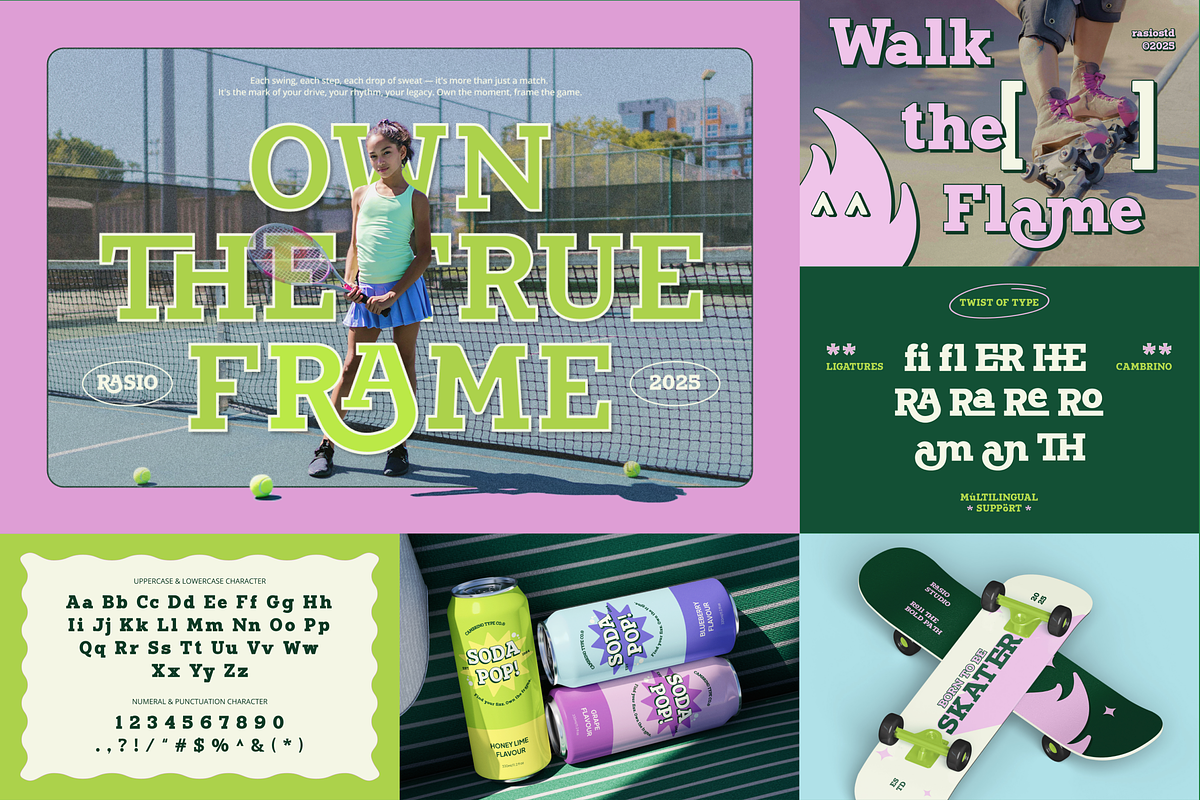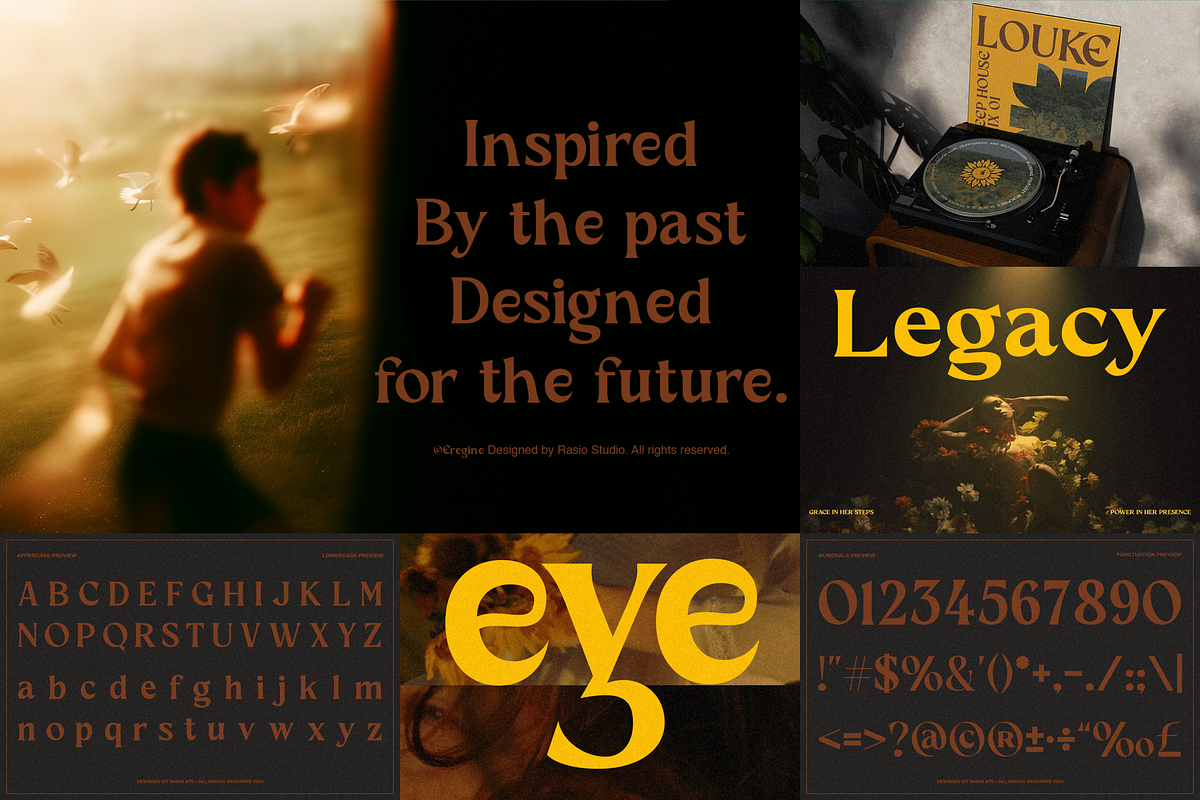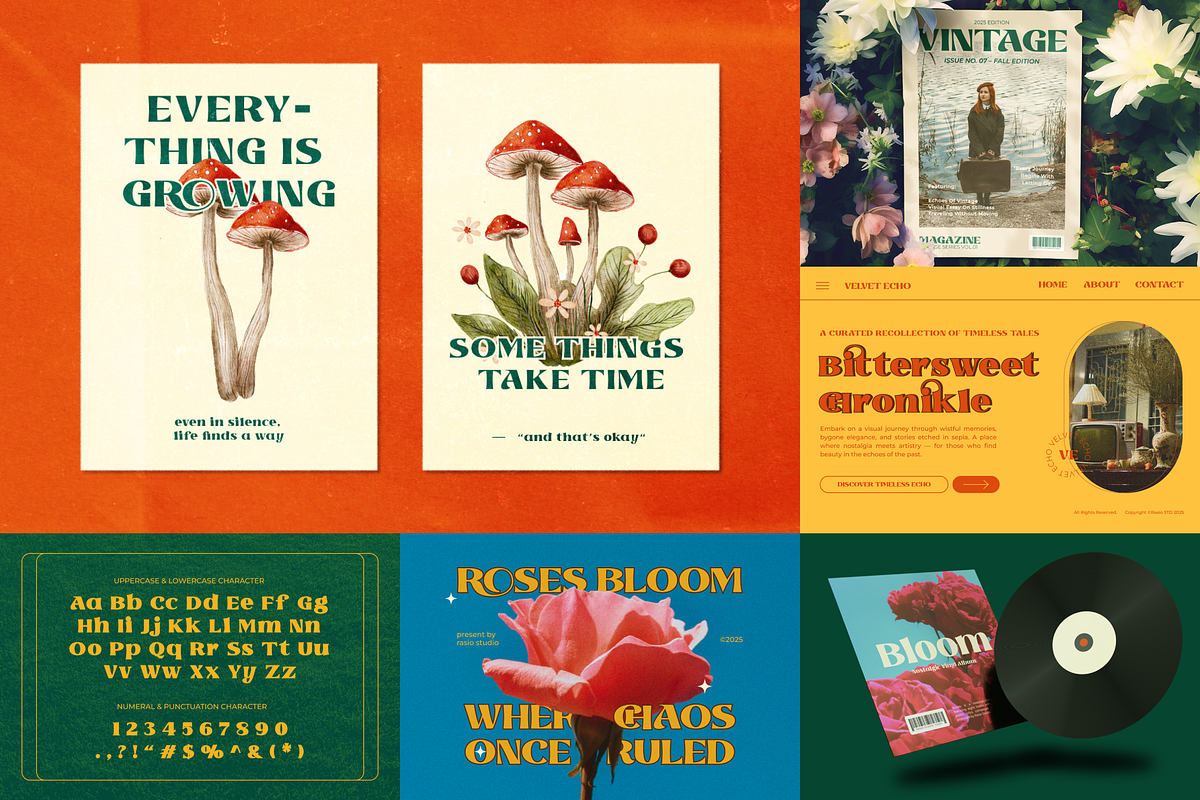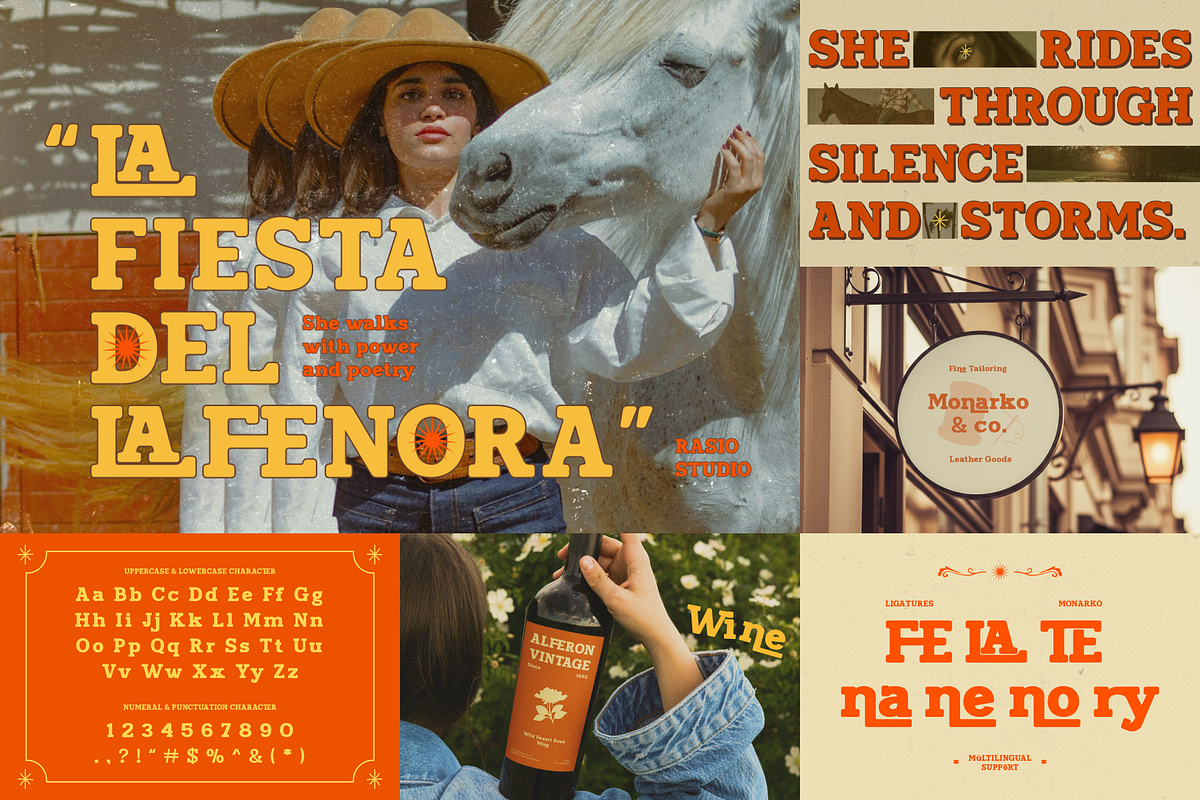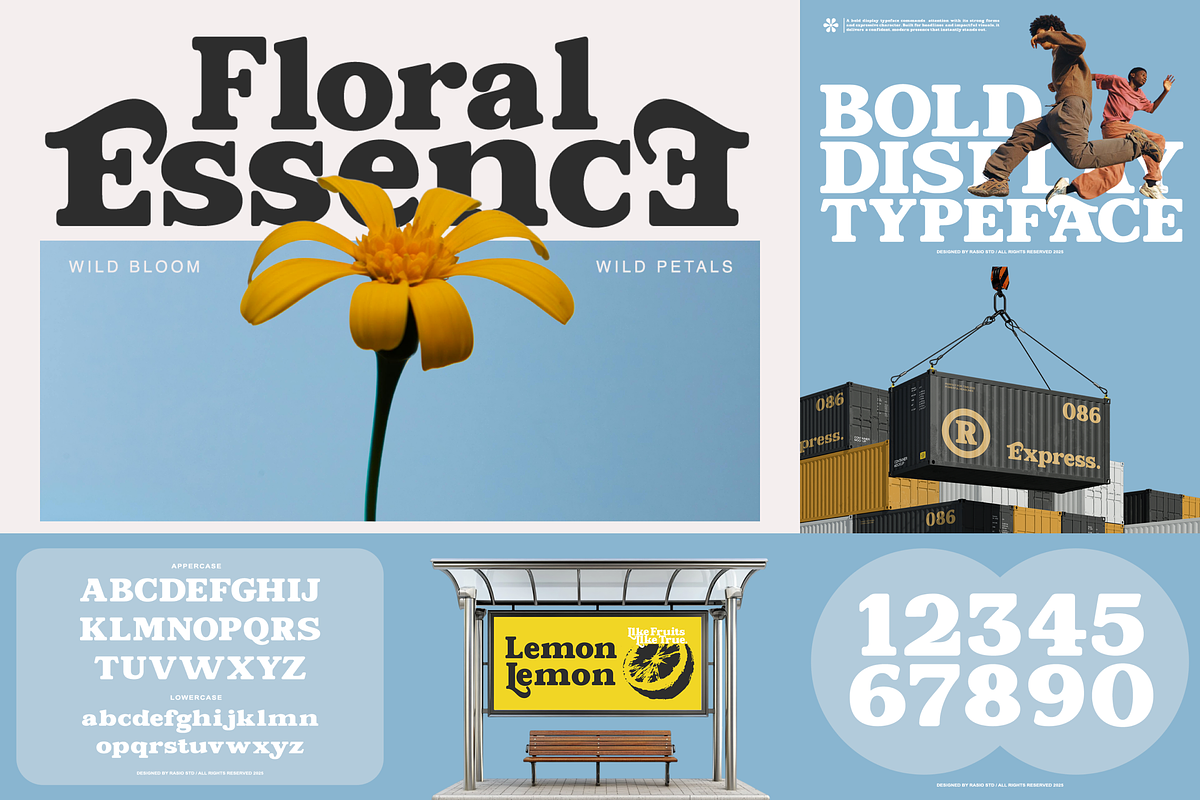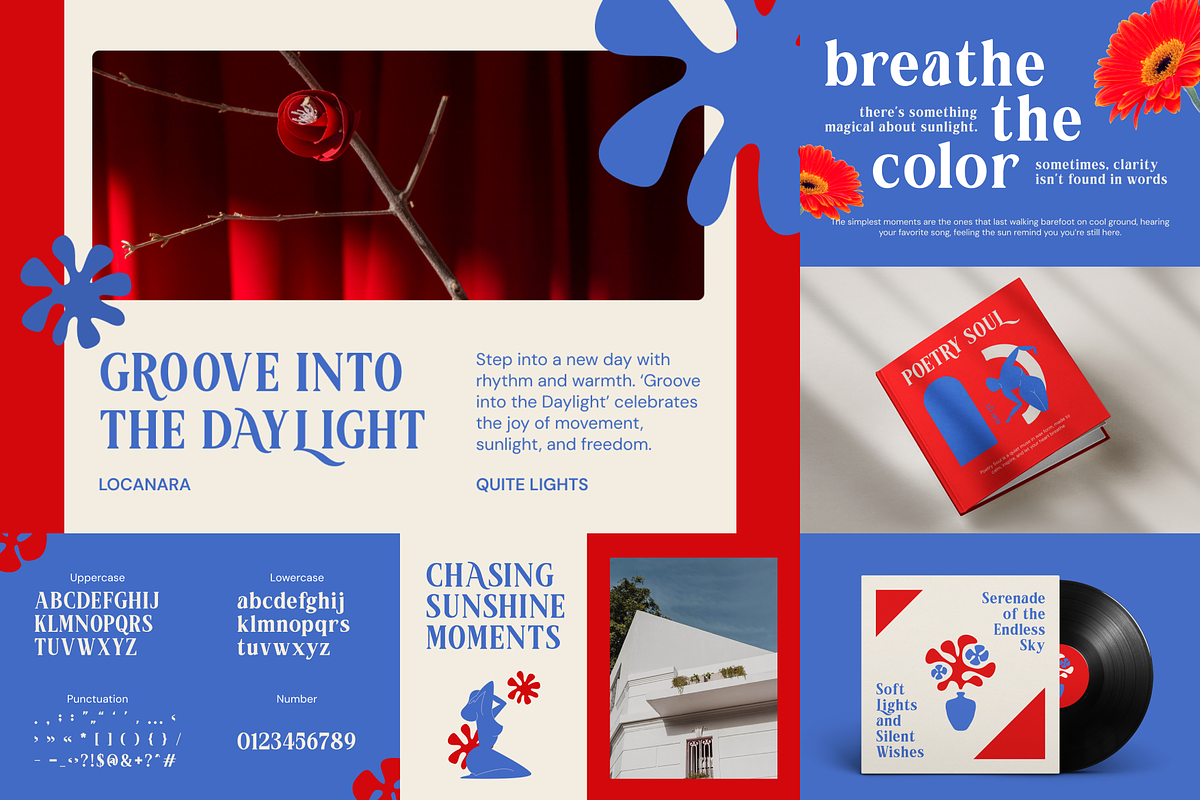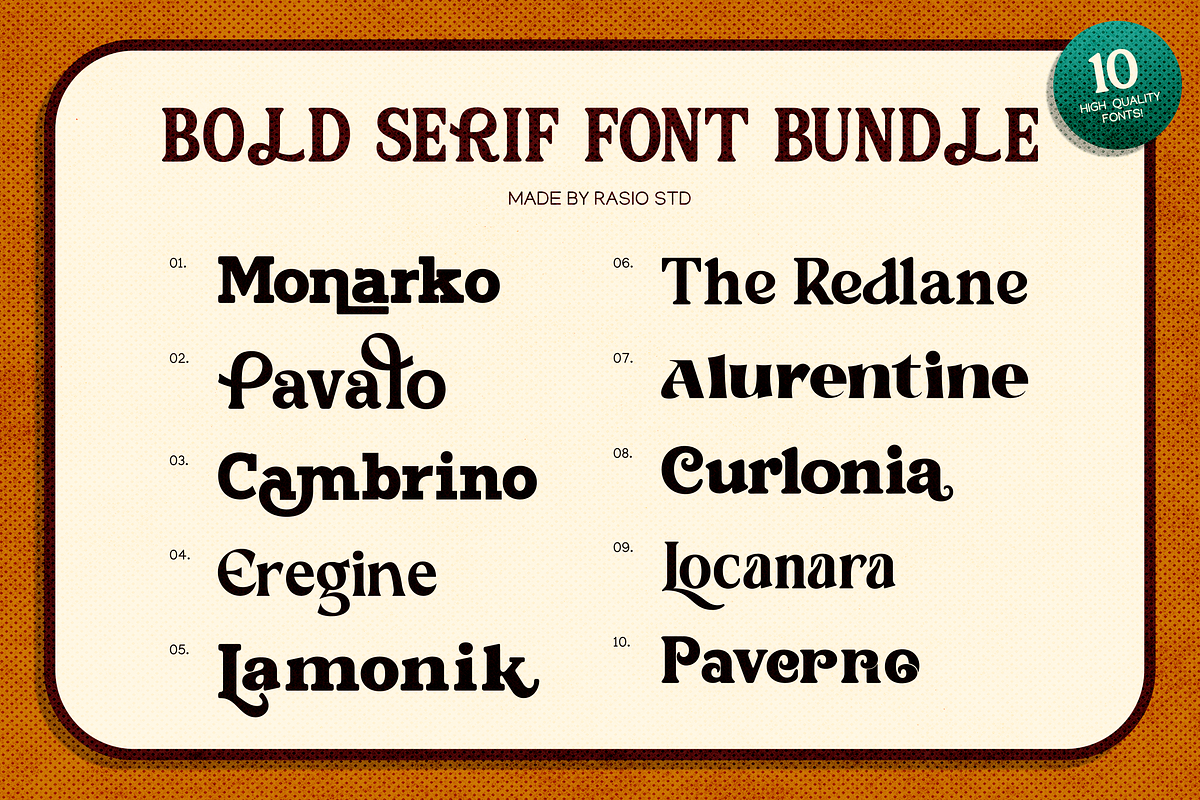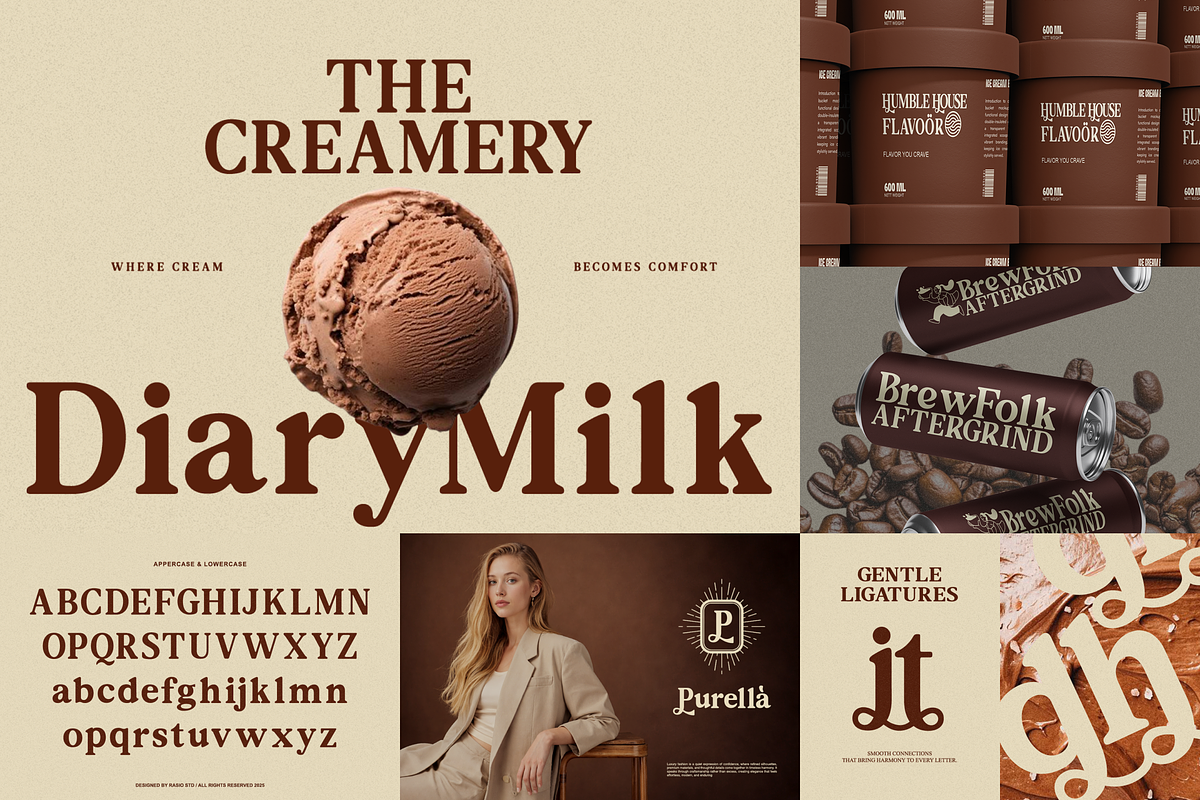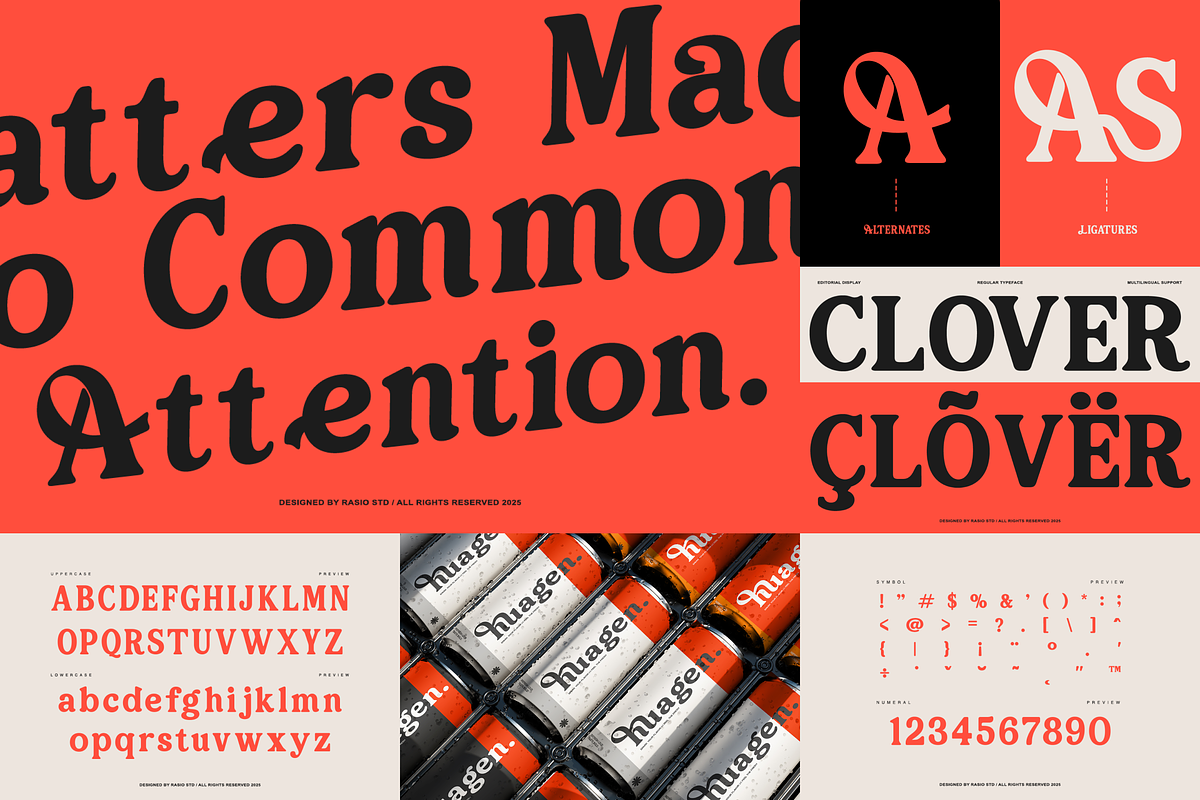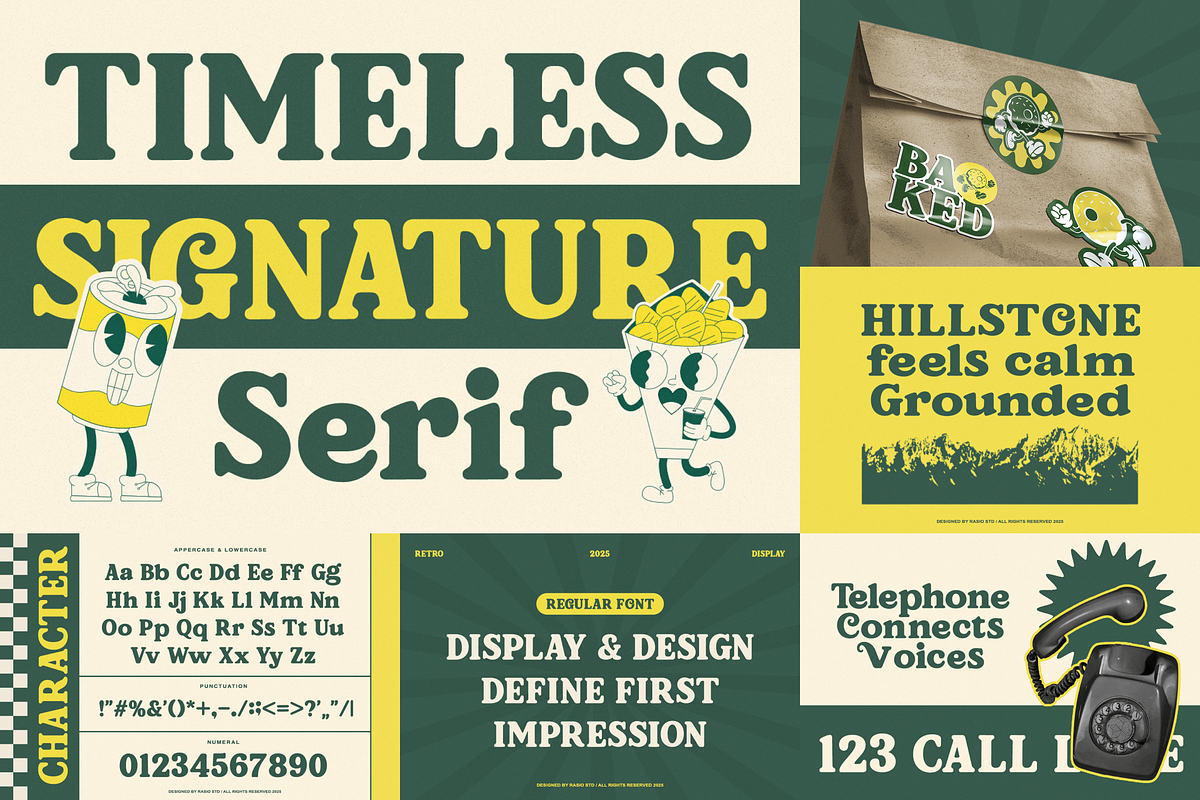
Bold Serif Font Bundle
The Bold Serif Font Bundle is a strong and character-driven type collection designed to make an immediate visual impact. Featuring bold serif letterforms with distinctive shapes and confident proportions, this bundle blends classic serif foundations with expressive, modern display energy.
Each typeface is crafted to stand out in headline and display use, delivering powerful contrast, solid weight, and eye-catching details. Perfect for posters, branding, packaging, and editorial visuals, these fonts bring a bold personality while remaining legible and versatile. Whether you’re creating statement branding, retro-inspired designs, or expressive typographic layouts, this font bundle provides a reliable and impactful serif solution.
- 10 high-quality bold serif fonts
- Strong and expressive serif letterforms
- A mix of classic, retro, and modern serif styles
Perfect for
- Branding and logo design
- Editorial and headline layouts
- Posters and advertising
- Packaging and product design
- Retro, vintage, and bold visual projects